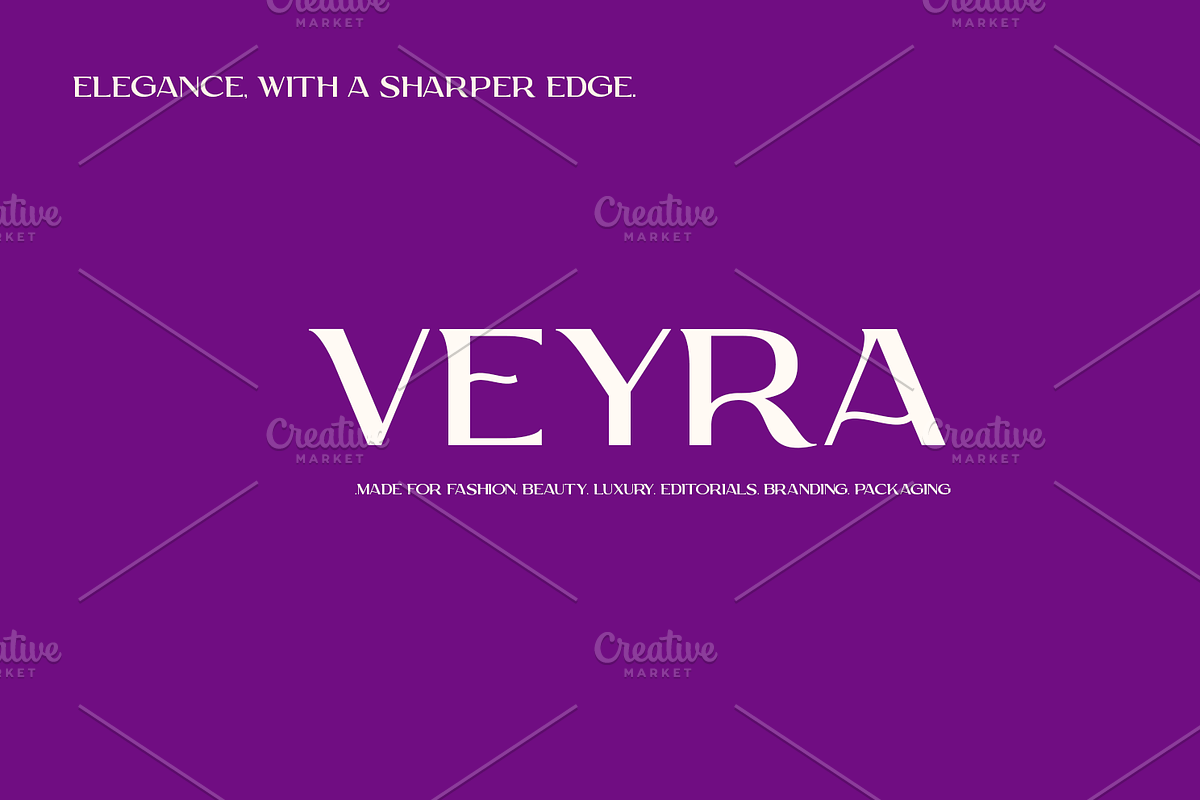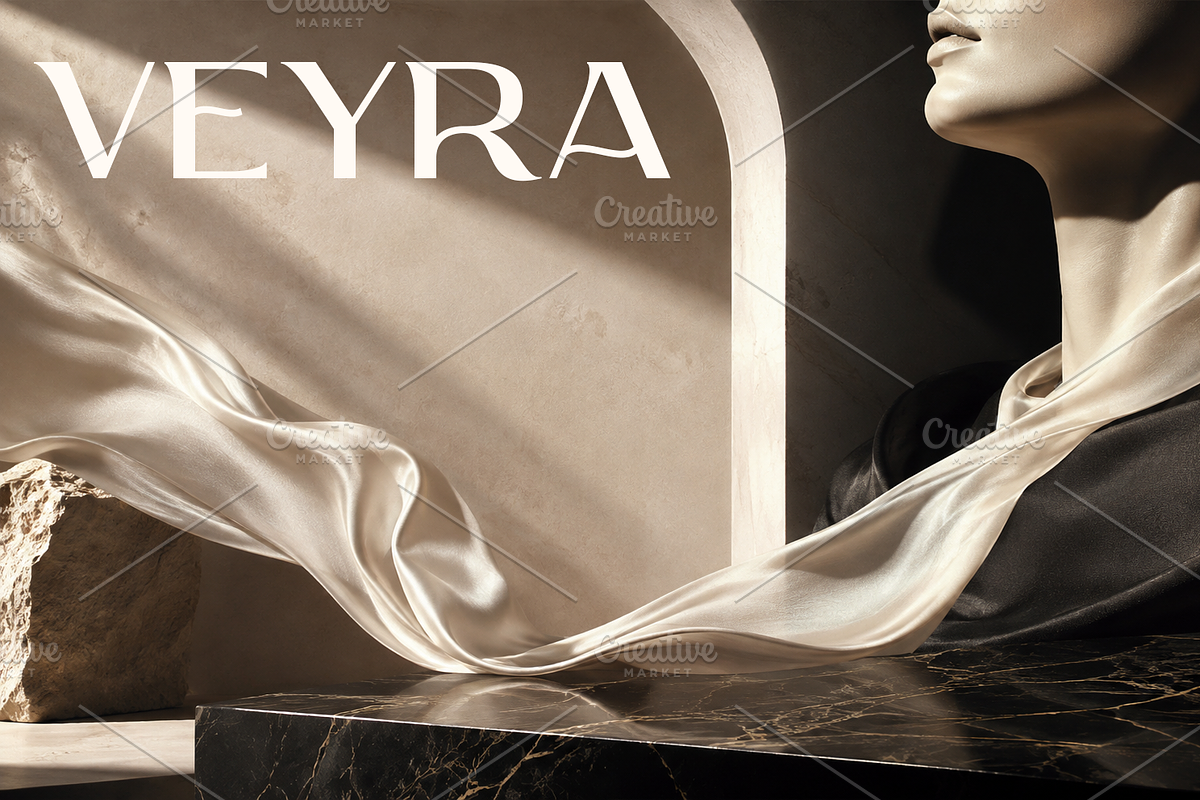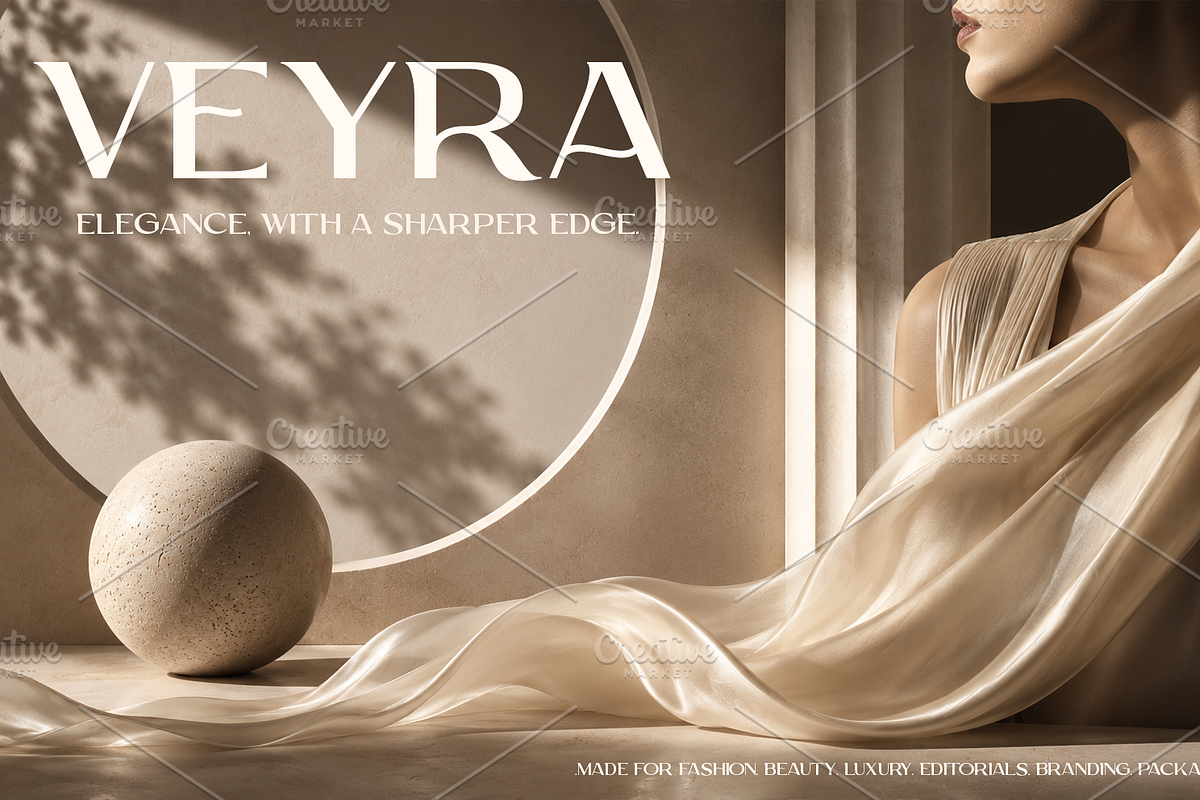
Meet Veyra
Elegance, with a sharper edge.
Serena is a sophisticated high-contrast serif display typeface crafted to make every word feel intentional.
With dramatic contrasts, refined curves, and distinctive letterforms, Serena brings together the timeless character of classic typography with the confidence of contemporary editorial design.
Made for fashion. Beauty. Luxury. Editorials. Branding. Packaging.
Serena doesn’t simply fill the space.
It owns it.
Use it for bold headlines, elegant identities, magazine covers, campaign visuals, invitations, logos, and premium packaging — wherever your typography needs to feel refined, expressive, and unforgettable.
Veyra — designed to turn words into statements.